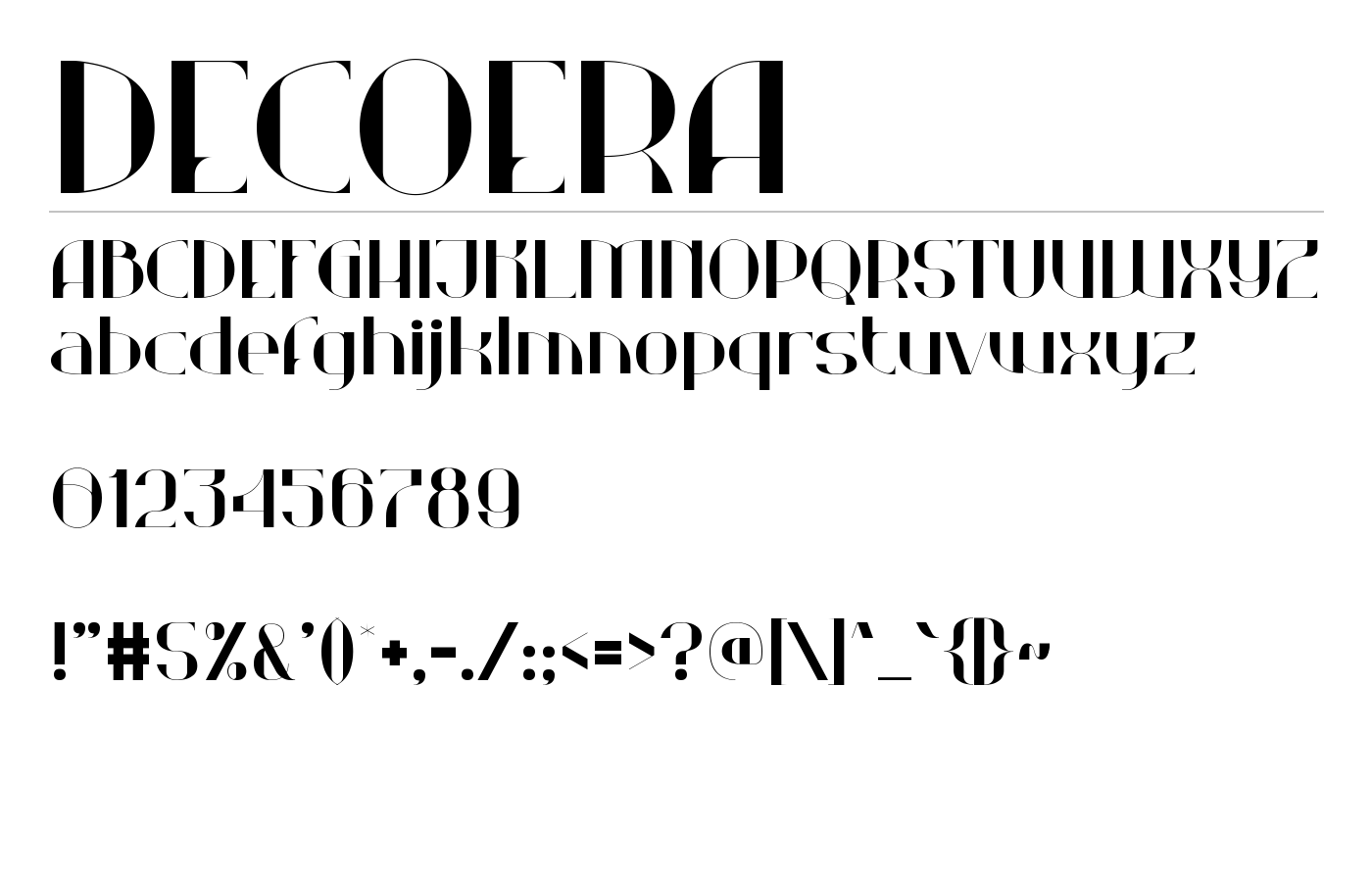
Decoera is a stylish, modern serif font with strong contrast between thick and thin strokes, featuring elegant, sharp edges and a high x-height that gives it a bold yet refined presence. Its unique, artistic letterforms and decorative flair make it perfect for luxury branding, fashion headlines, and sophisticated editorial designs where a chic and contemporary look is desired. This font stands out in logos, posters, and packaging that aim to convey elegance and creativity.
Decoera Font
About Decoera Font